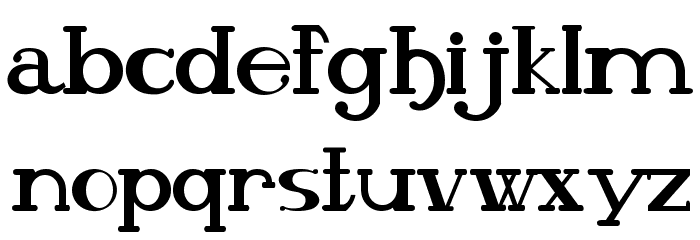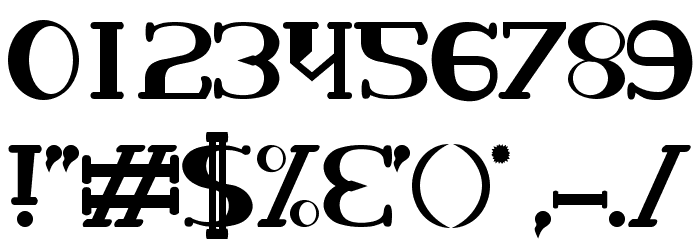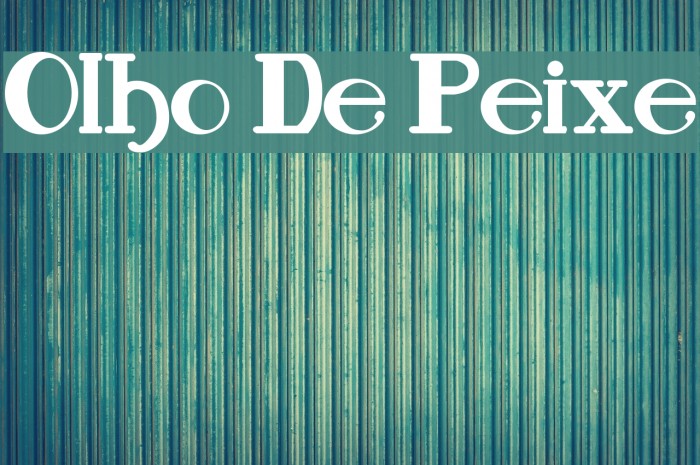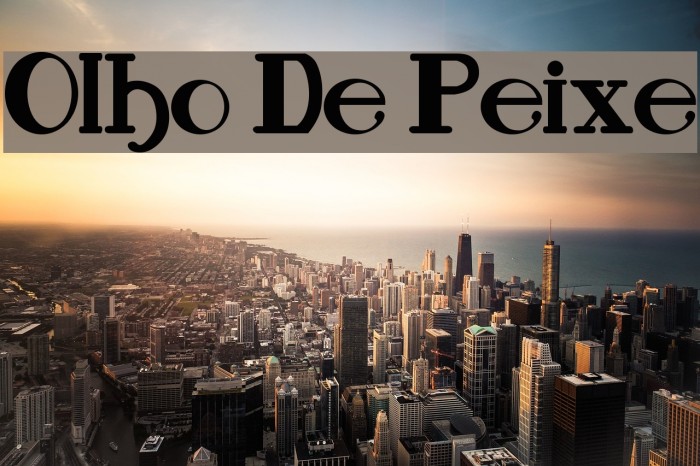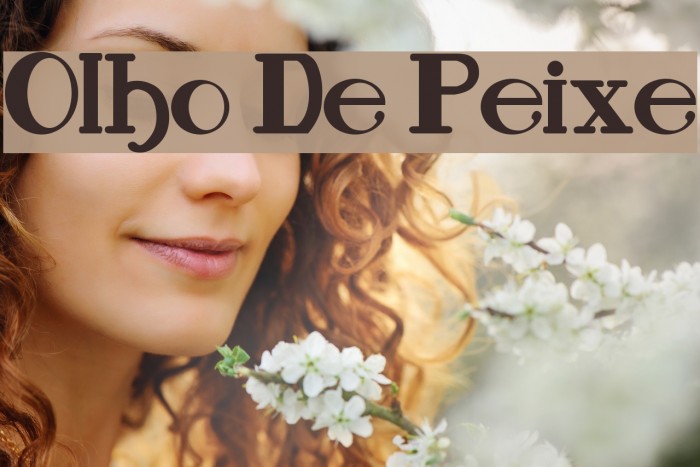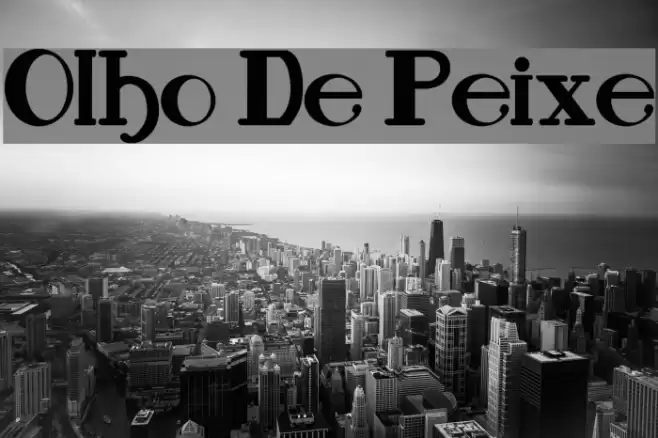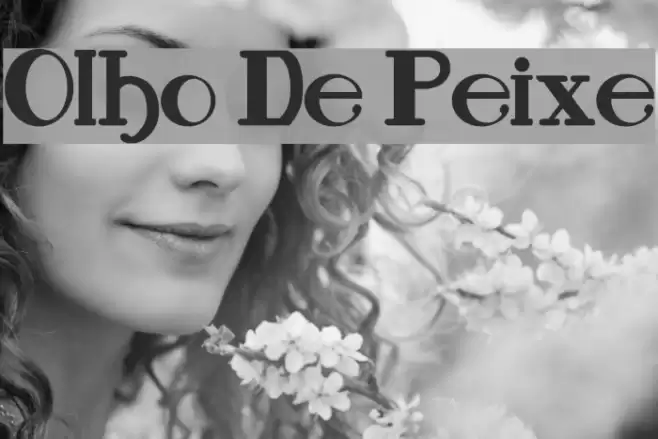
Olho De Peixe Font
This font features a bold and striking design with a unique blend of modern and vintage elements. The uppercase letters are characterized by strong, angular serifs and a slightly condensed form, giving them a commanding presence. The lowercase letters maintain a consistent style, with rounded edges and distinctive curves that add a touch of elegance. The numerals are bold and easily readable, with a consistent weight that matches the letters. Special characters are creatively designed, incorporating both traditional and contemporary elements, making them stand out. Overall, this font combines a classic serif style with modern flair, making it versatile for various design projects.
A bold serif font with a blend of modern and vintage elements.
- Proposed Projects: Ideal for branding, editorial design, posters, and packaging where a strong, distinctive typeface is needed.
- Overall Style: Modern Vintage